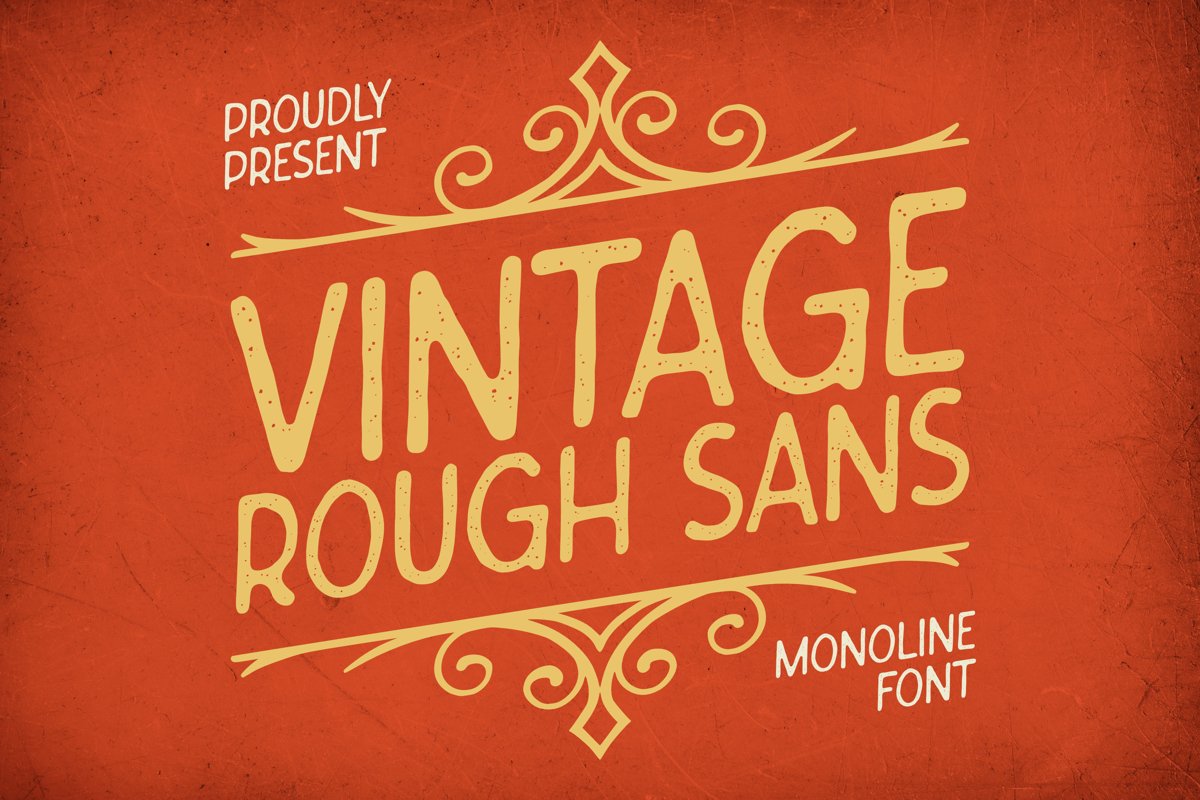
Vintage Rough Sans Font
Suitable for some designs such as the logotype, brand, packaging, quotes, music poster, t-shirt, cover book and more custom design. The features uppercase, lowercase, numeral, punctuation & symbol, multilingual support.